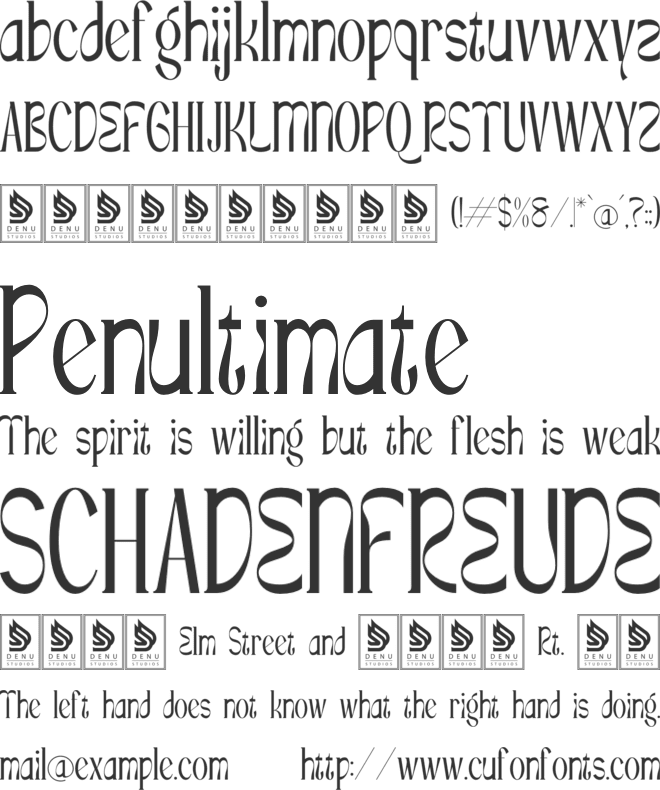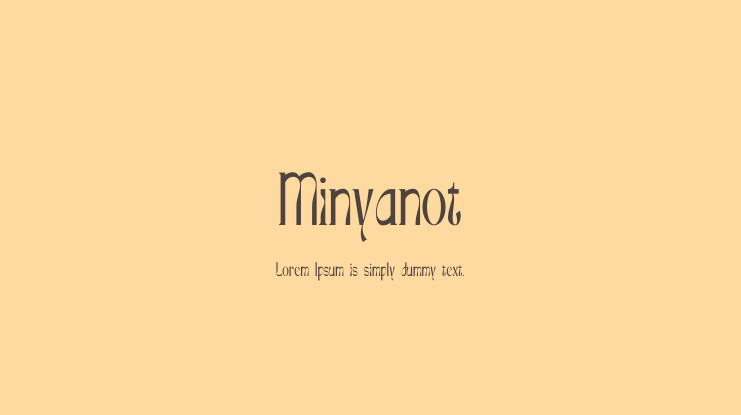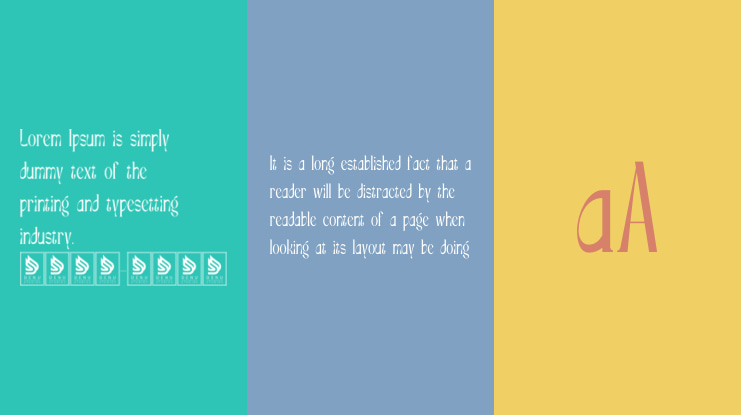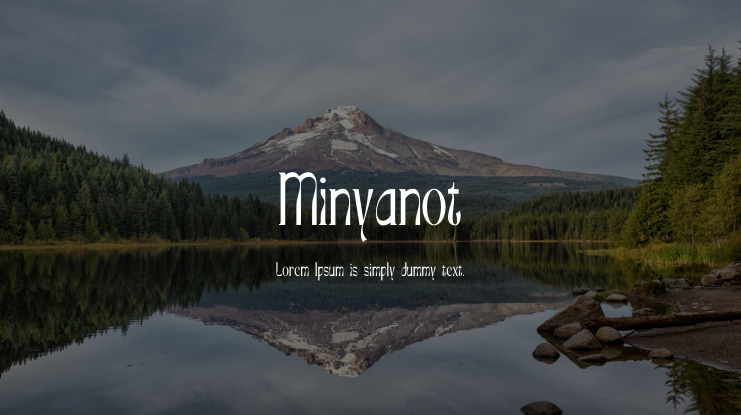
Minyanot Font
Minyanot | Modern Display Serif is suitable for a variety of projects, including:
• Logos
• Branding projects
• Homeware designs
• Product packaging
• Mugs
• Quotes
• Posters
• Shopping bags
• T-shirts
• Book covers
• Name cards
• Invitation cards
• Greeting cards
• Labels
• Photography
• Watermarks
• Special events
• All your other lovely projects that require a Modern Display Serif touch